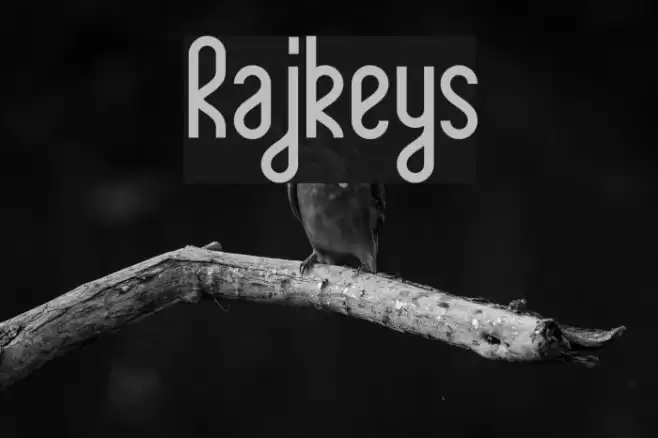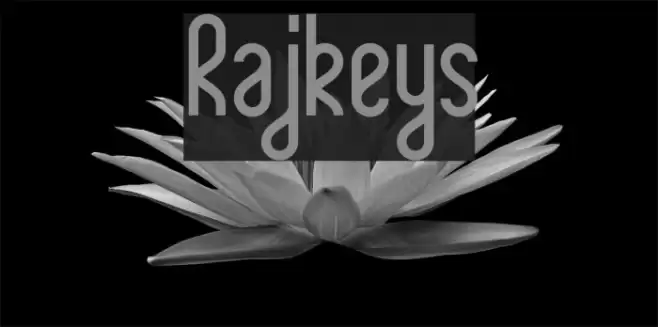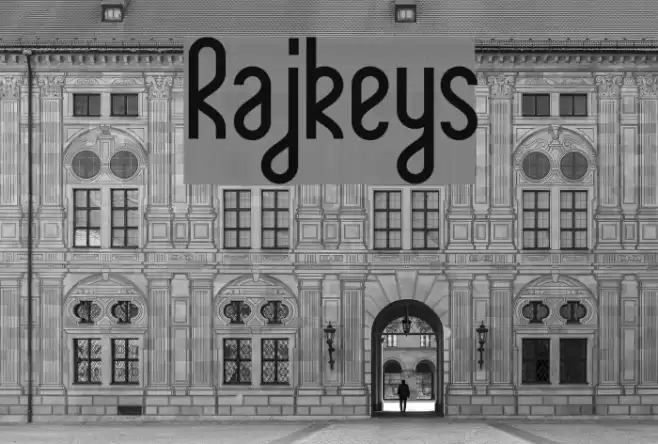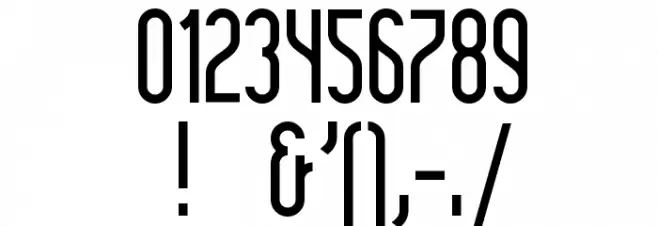
Rajkeys Font
Rajkeys Description
This font features a modern and sleek design with elongated letterforms and rounded edges, giving it a unique and contemporary appearance. The uppercase letters are tall and narrow, while the lowercase letters maintain a consistent height, providing a harmonious balance. The numerals are distinct and easy to read, with a uniform width that complements the overall style. Special characters are designed with the same attention to detail, ensuring they blend seamlessly with the rest of the typeface. The font's clean lines and geometric shapes make it versatile for various design applications.
A modern, sleek font with elongated letterforms and rounded edges from Uncategorized fonts.
- Proposed Projects: Ideal for branding, advertising, packaging, and modern web design projects.
- Use Case: Headlines, Logos, Branding